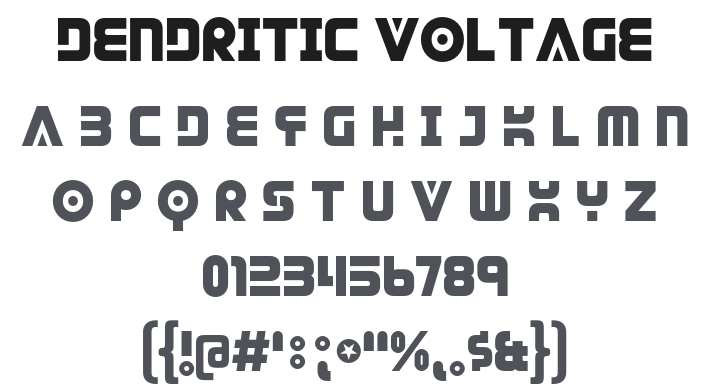
Dendritic Voltage Font
About Dendritic Voltage
Dendritic Voltage is a genuine Y2K techno display typeface with intricate, industrial letterforms that feel like circuit diagrams or high-voltage schematics — bold, complex, and unmistakably late-1990s cyberpunk. OpenType features include narrow capital alternates and a stacked LL ligature. Great for sci-fi branding, cyberpunk game titles, tech posters, underground club flyers, and anything channeling that raw digital-era energy.